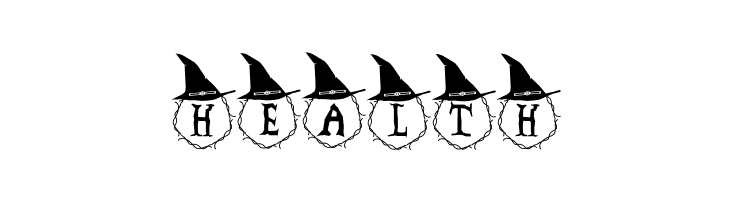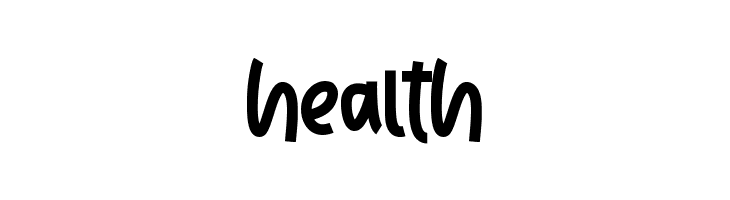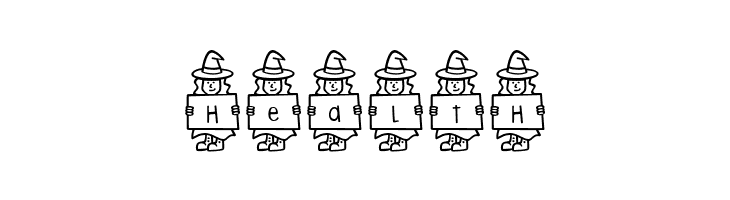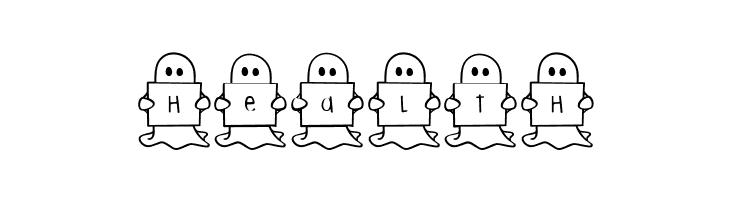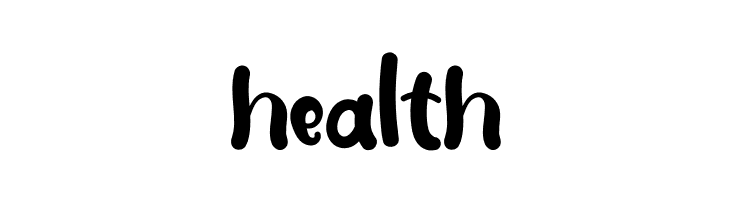
A bold, playful font with spooky skull motifs and thick strokes.
A playful, spooky font with jagged, uneven strokes, perfect for Halloween themes.
A spooky, bone-themed font perfect for Halloween projects.
A whimsical, spooky font with tall, narrow characters and playful serifs.
A bold, dripping font with a spooky, playful aesthetic.
A jagged, horror-themed font with sharp, irregular edges.
A decorative font styled to resemble bones, perfect for spooky themes.
A bold, spooky font with jagged, irregular characters perfect for horror themes.
A playful and whimsical font with bold, curvy letterforms and a festive style.
A spooky, mummy-themed font with textured uppercase and tombstone-encased lowercase letters.
A bold, textured font with a spooky, hand-drawn appearance.
A spooky, decorative font with scratchy, uneven strokes.
A bold, dripping font with a spooky, liquid-like appearance.
A spooky, dripping font perfect for Halloween themes.
A spooky, jagged font with a dripping effect, perfect for Halloween themes.
A playful, bone-themed decorative font perfect for spooky designs.
A spooky, whimsical font with jagged edges and playful curves, perfect for Halloween themes.
A bold, distressed font with a spooky, textured appearance.
A spooky, cobweb-adorned font perfect for Halloween themes.
A spooky, dripping font perfect for Halloween themes.
A spooky, dripping font with a haunting and eerie design.
A spooky, hand-drawn font with an eerie, ghostly appearance.
A spooky, ghostly font with fluid, irregular strokes and a haunting aesthetic.
A whimsical, spooky font with jagged edges and playful curls, ideal for Halloween themes.
A spooky, jagged font with a distressed, eerie appearance.
A playful, spooky font with a dripping slime effect, perfect for Halloween themes.
A spooky, distressed font with jagged, dripping characters.
A playful, spooky font with jagged edges and a hand-drawn style, perfect for Halloween themes.
A bold, spooky font with a dripping effect, ideal for Halloween themes.
A spooky, Halloween-themed decorative font with dripping effects and playful elements.
A spooky, whimsical font ideal for Halloween themes.
A playful, spooky font with a dripping effect, perfect for Halloween themes.
A jagged, irregular font perfect for spooky, Halloween-themed designs.
A bold, jagged font with a spooky, distressed style perfect for Halloween themes.